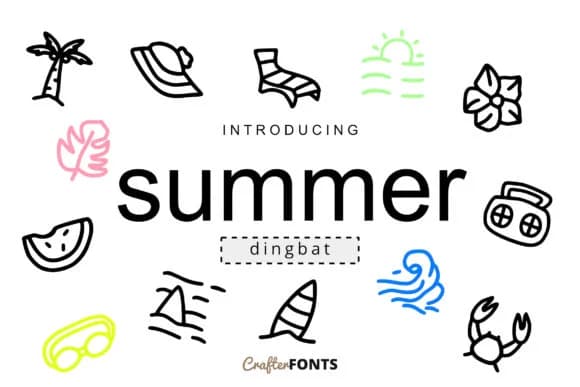
Summer Doodle by CrafterFonts is a playful dingbat collection built around hand-drawn summer and coastal symbols that capture the relaxed feeling of seaside life. The font shines on beach-themed party invitations, nautical logo marks, DIY scrapbooking layouts, and social media graphics for coastal lifestyle brands. Each character carries a casual, sketchy quality that feels genuine and personable rather than slick or corporate. That energy is exactly what you need when a design should feel warm and approachable instead of polished and distant.
What makes this collection genuinely useful is how adaptable it proves within its cohesive theme. You can layer the symbols to create custom patterns, use them as decorative borders and accents, or compose entire graphics from the character set alone. The dingbat structure means manageable file sizes without sacrificing visual richness or character variety. Rather than maintaining dozens of separate vector files, you get hand-drawn expressiveness packaged into one flexible font that speeds up your workflow and expands your creative options. That kind of practical elegance makes a real difference when you're working on multiple projects with tight timelines.
Summer Doodle Font is a versatile dingbats font that works for both headings and body text. Pair it with a contrasting sans-serif or serif font to add visual interest and a clear distinction between titles and body copy.
Summer Doodle Font